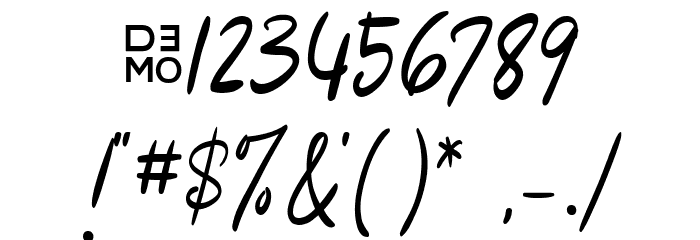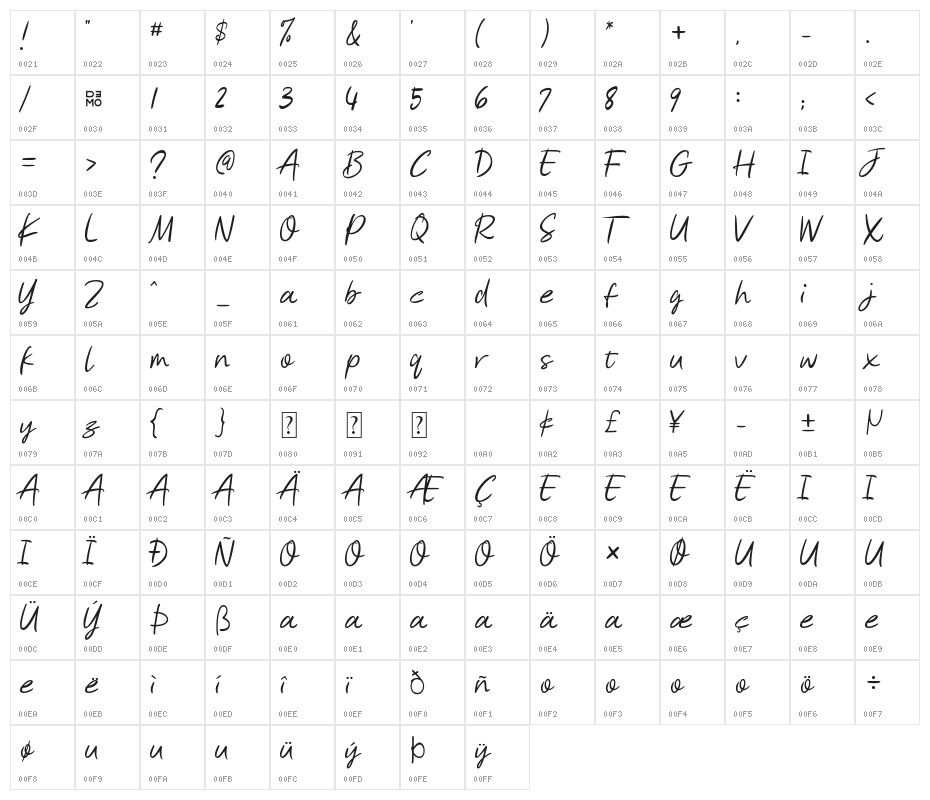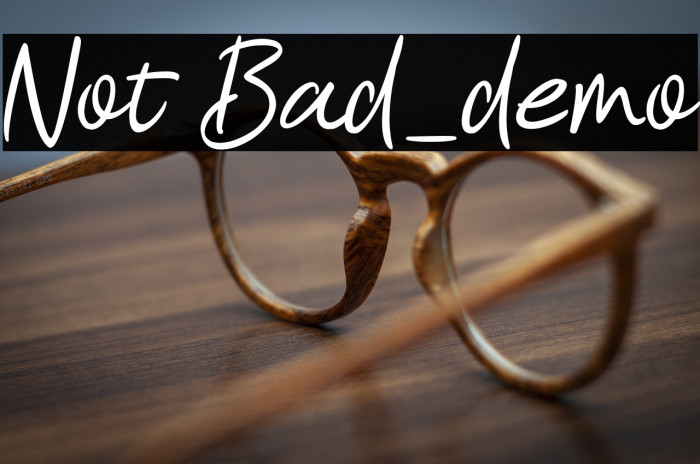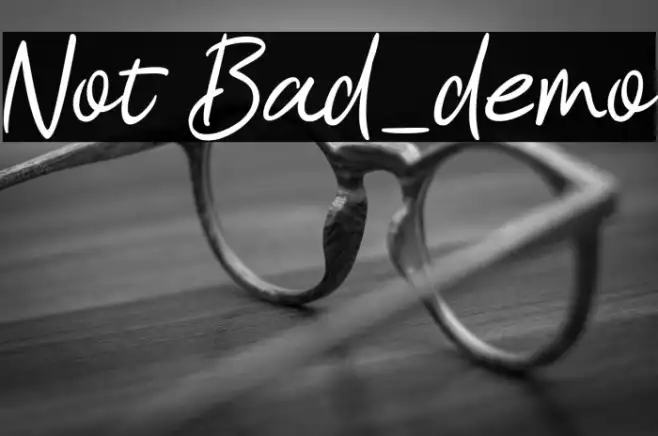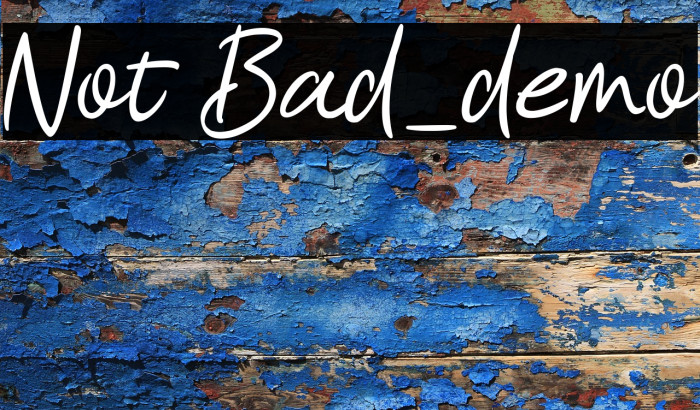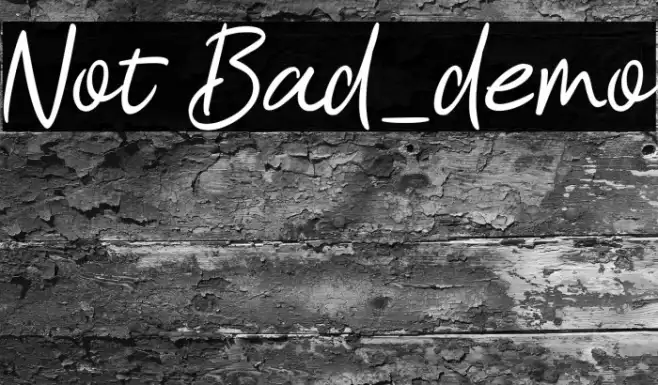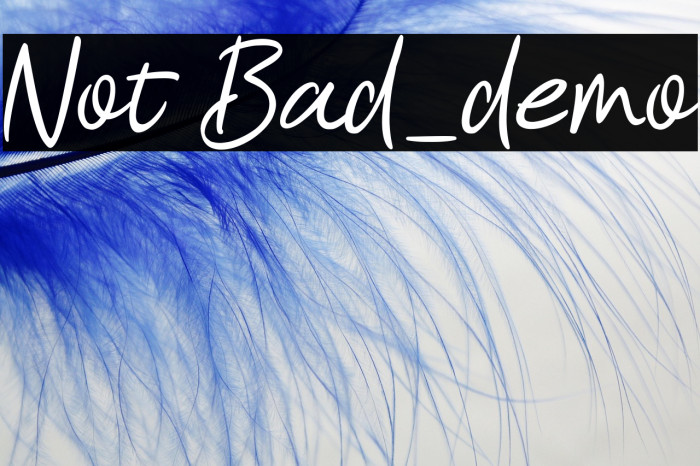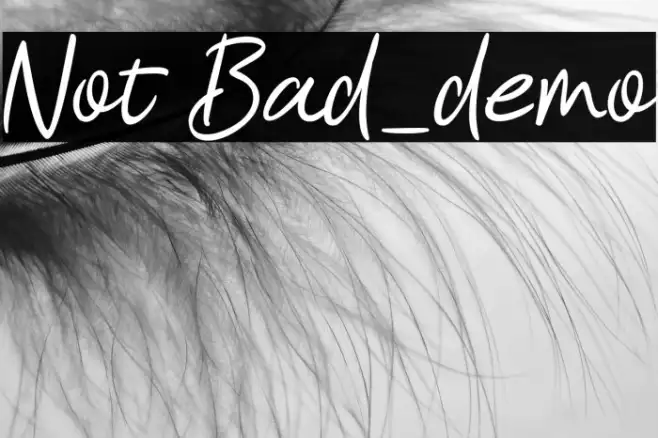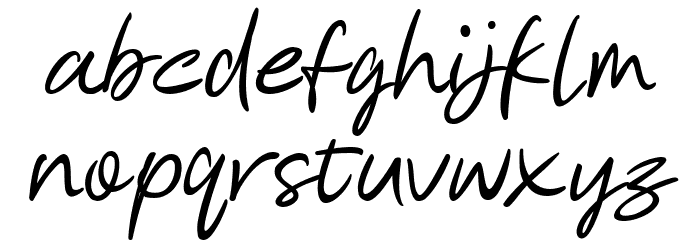
Not Bad_demo Font
Not Bad_demo Description
This font features a dynamic and expressive handwritten style, characterized by its fluid and cursive letterforms. The uppercase letters are bold and slightly slanted, giving a sense of movement and energy. The lowercase letters maintain a consistent flow, with smooth curves and a casual appearance. Numbers are clear and easy to read, while the special characters blend seamlessly with the overall style. The font exudes a personal and informal vibe, making it ideal for creative projects that require a touch of personality.
| Overall Style | Casual and expressive |
| Proposed Projects | Ideal for greeting cards, invitations, personal branding, and creative social media graphics. |